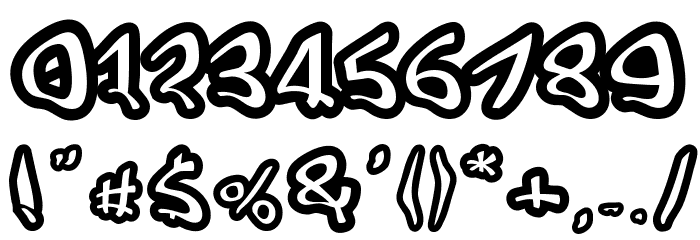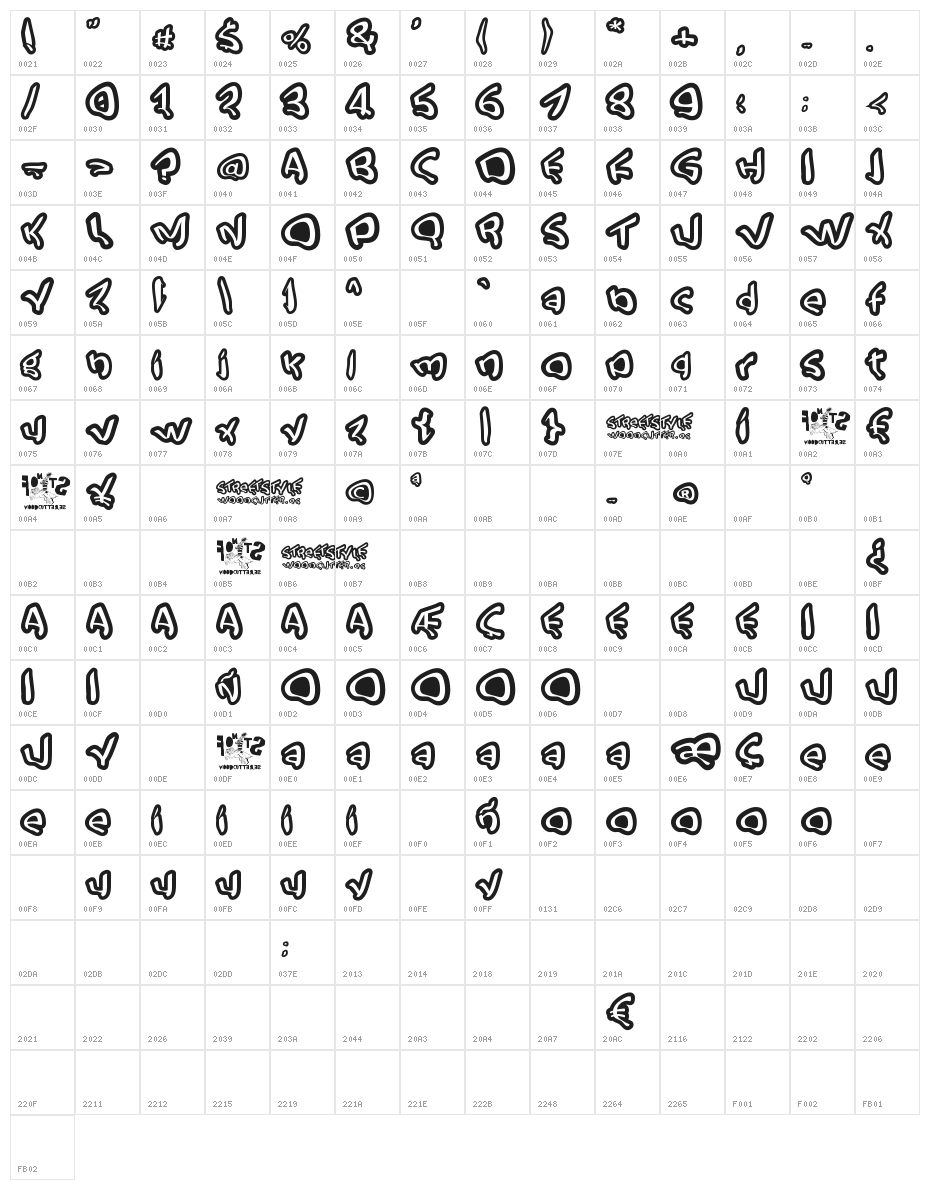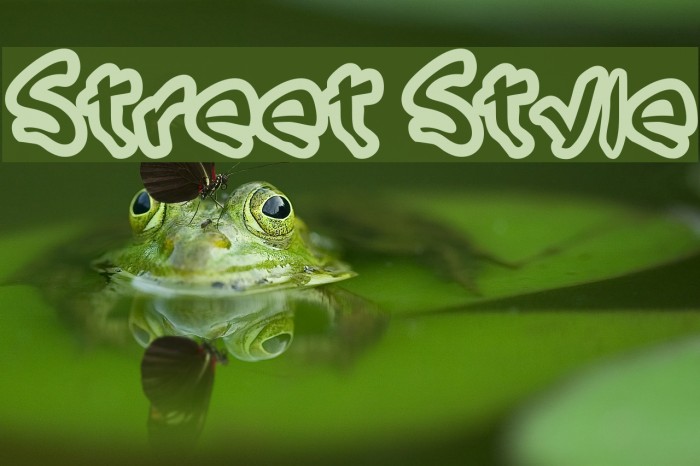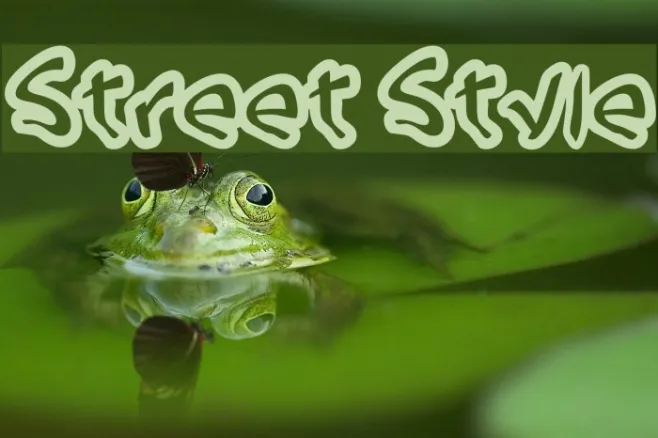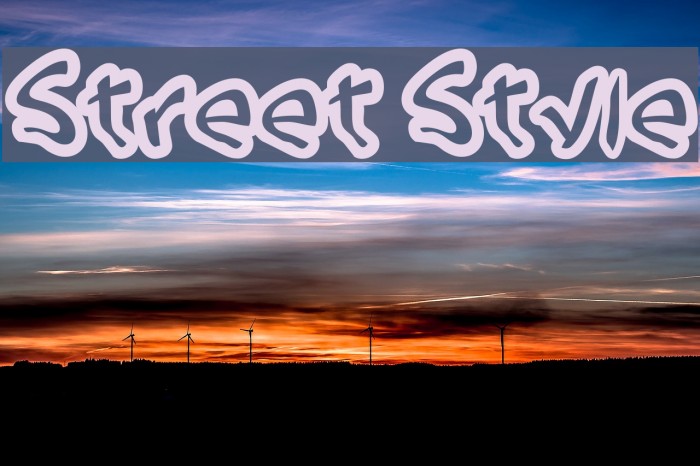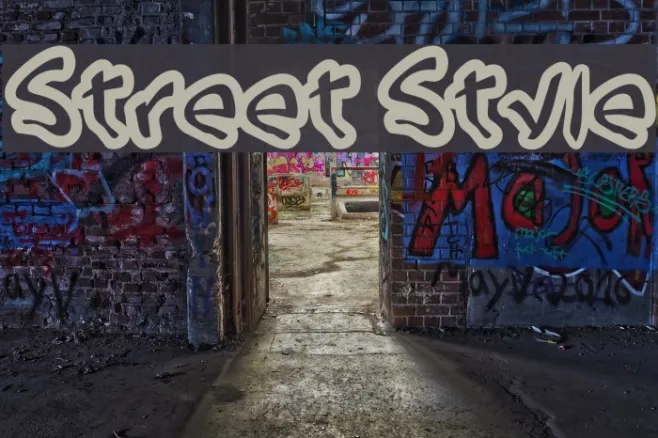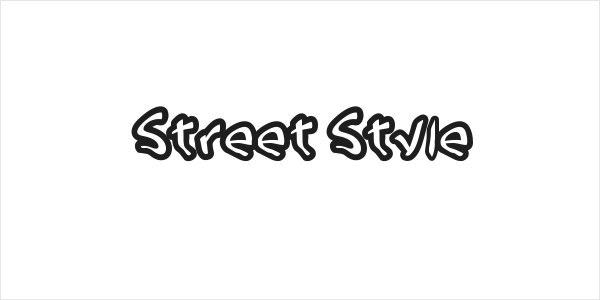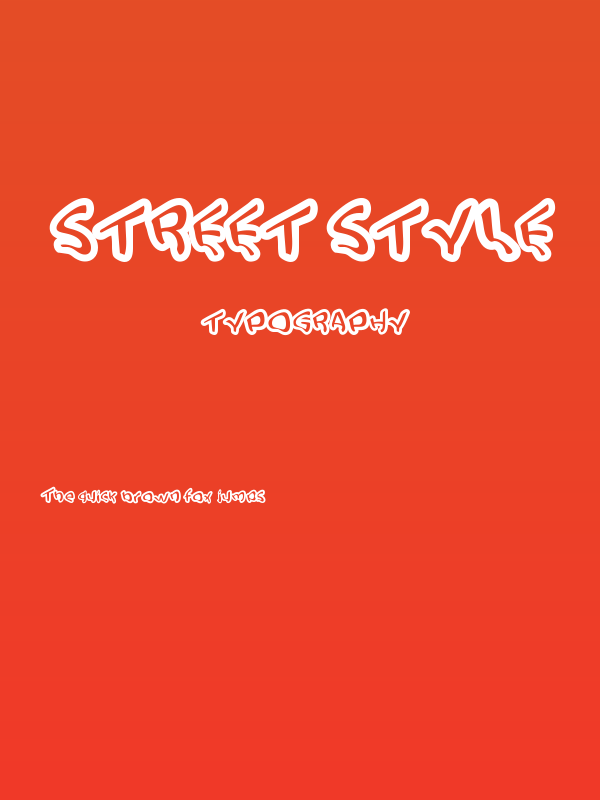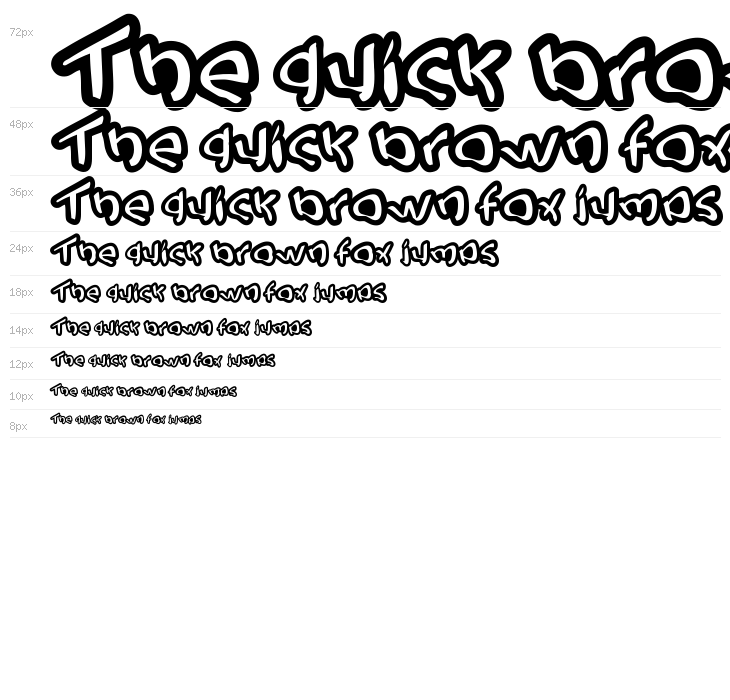
Street Style Font
Street Style Description
This font exudes a bold and energetic street art vibe, characterized by its thick, rounded strokes and playful, graffiti-inspired design. The letters are outlined with a strong, black border, giving them a three-dimensional appearance that stands out. The style is informal and dynamic, with each character having a unique, hand-drawn quality that adds to its urban aesthetic. The font is highly legible despite its artistic flair, making it suitable for attention-grabbing headlines and creative projects. The numbers and special characters maintain the same lively and bold style, ensuring consistency across all text elements.
| Overall Style | Urban, Playful, Graffiti |
| Proposed Projects | Ideal for streetwear branding, music album covers, event posters, and urban-themed designs. |